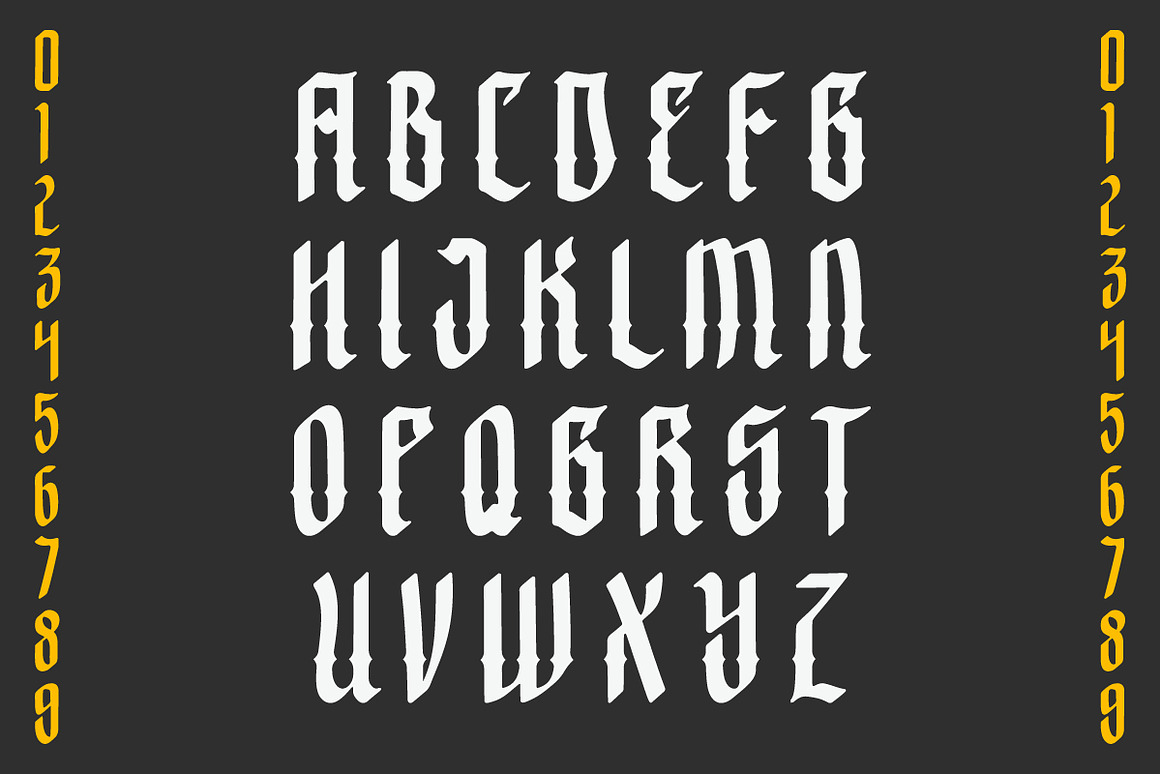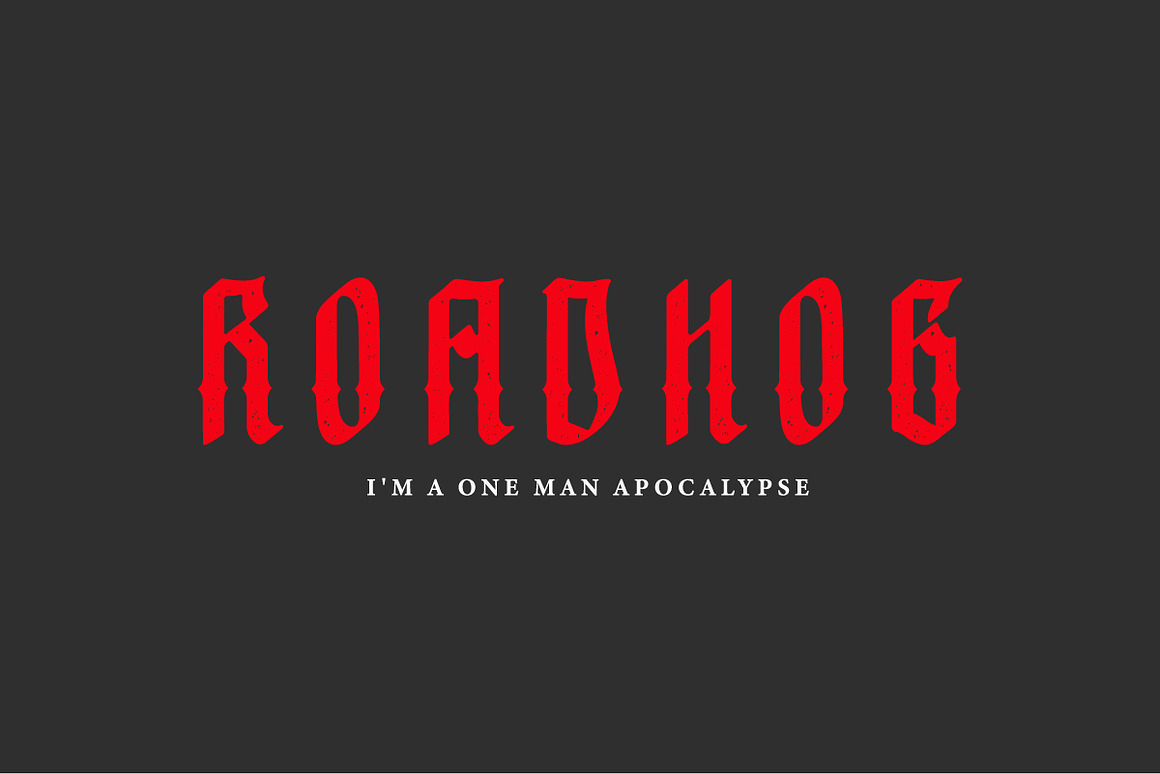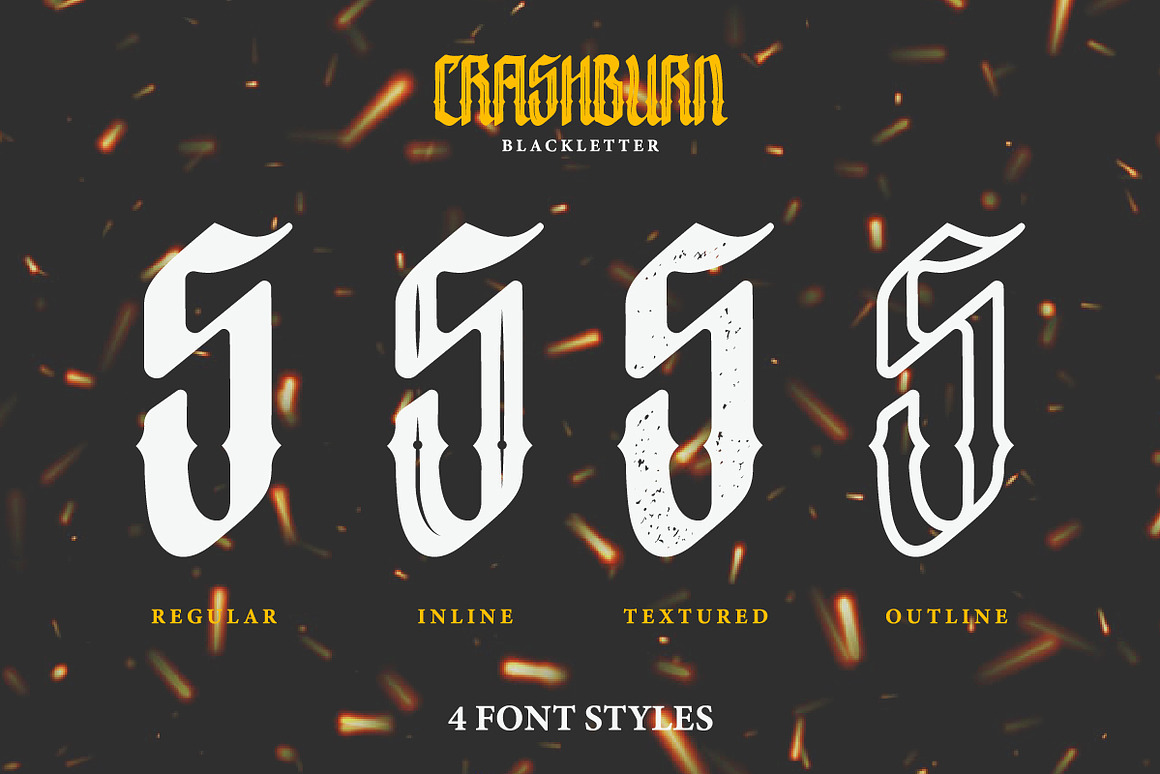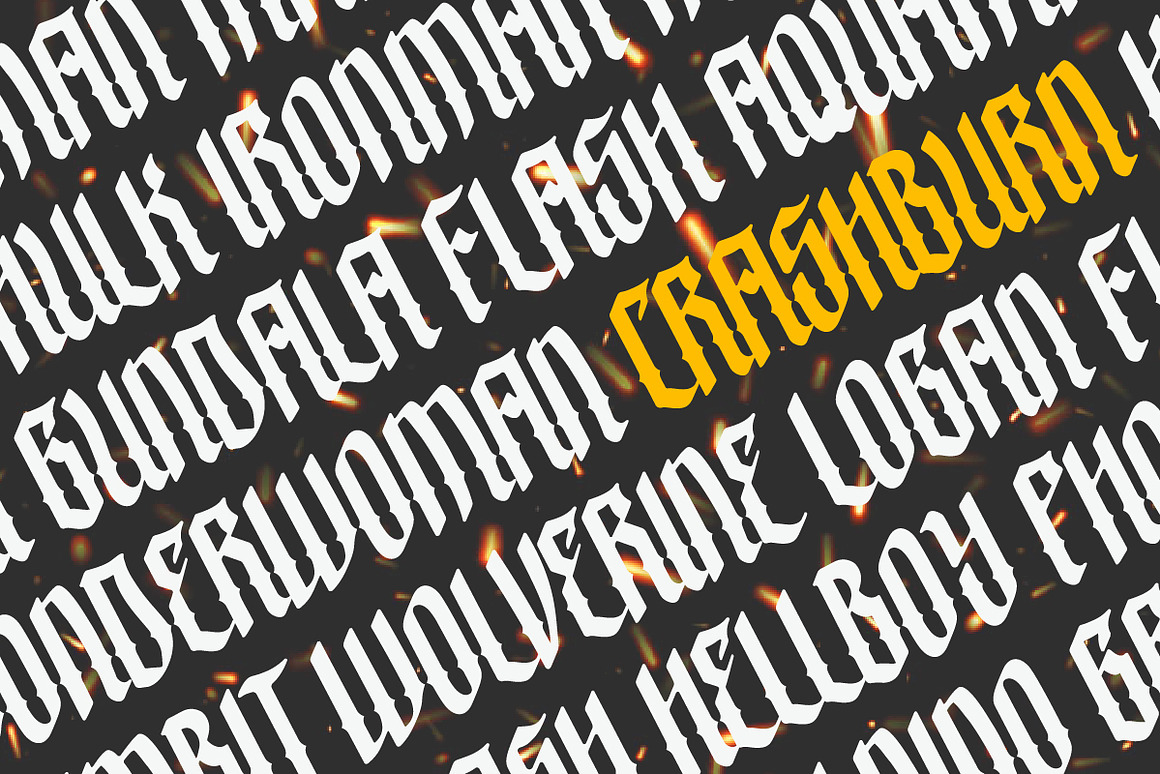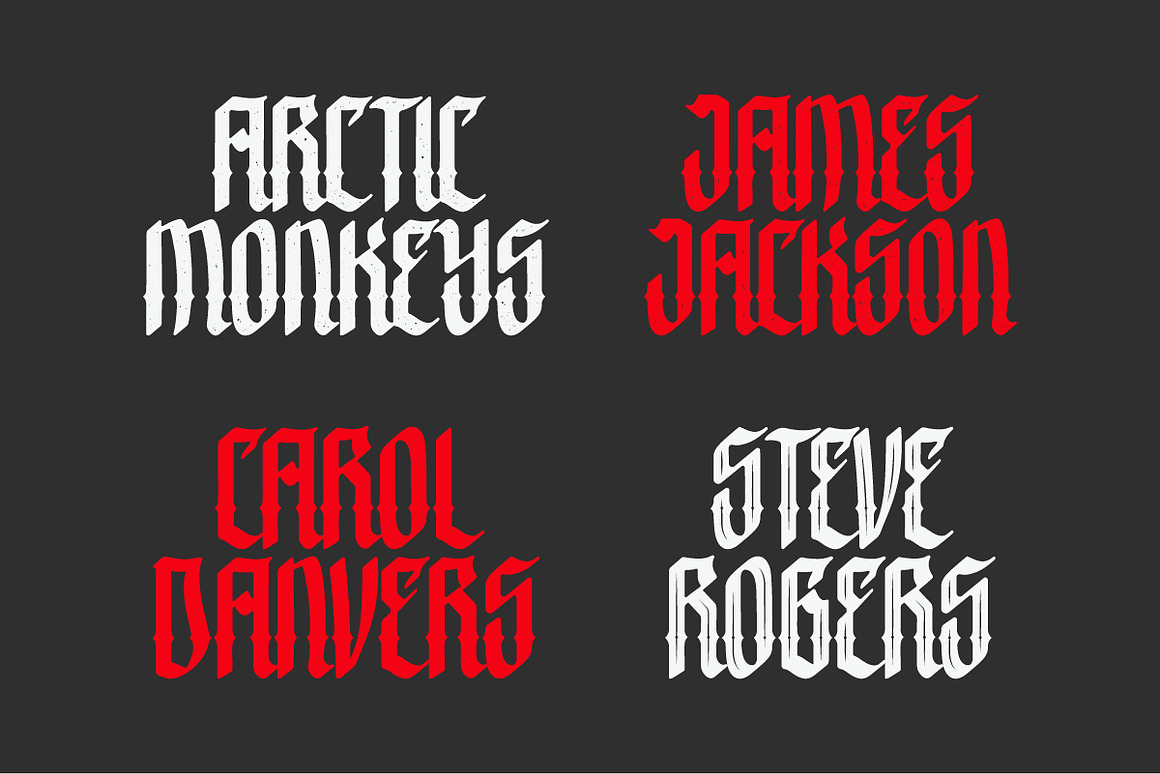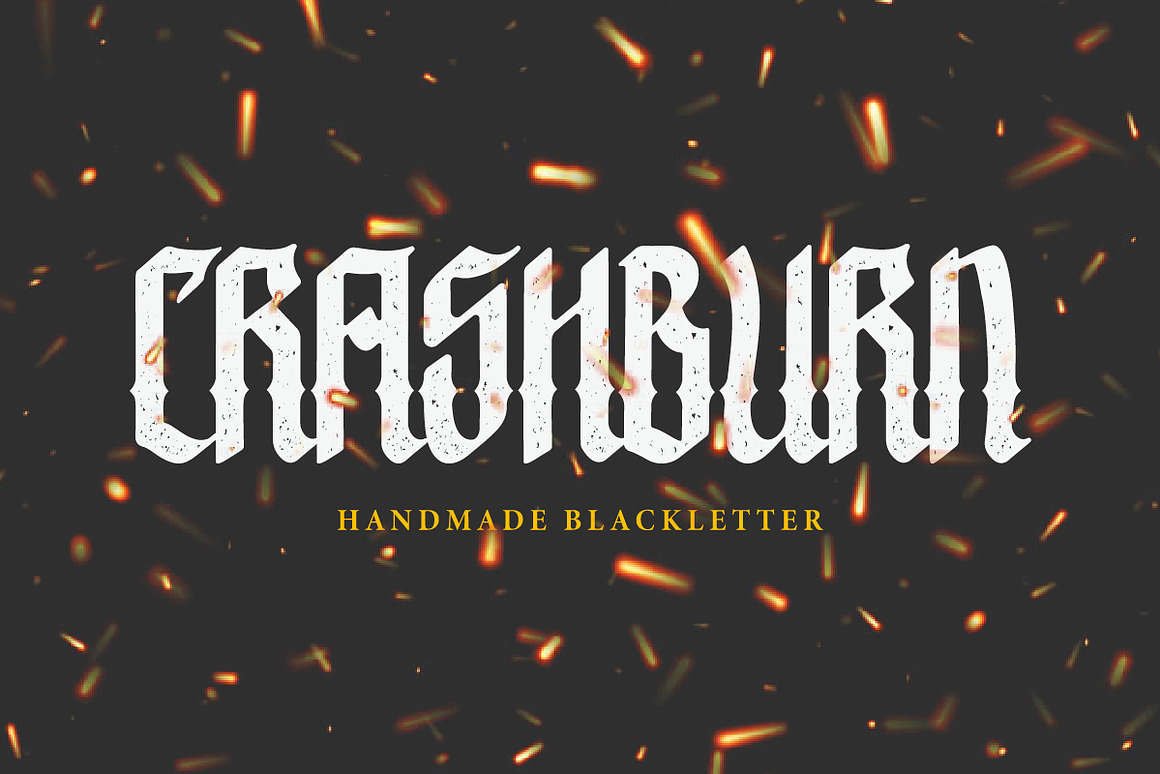
Crashburn | Blackletter Font
Crashburn | Blackletter Font is perfect for gothic branding, tattoo designs, heavy metal band logos, medieval-inspired posters, and alternative fashion packaging. Its dramatic blackletter style adds a bold and edgy touch to any project.
What makes Crashburn | Blackletter Font exciting is its intricate, historic letterforms combined with a modern flair. The sharp edges and ornate details create a visually striking design that demands attention, making it perfect for high-impact creative projects.
The Crashburn | Blackletter Font family includes Regular, Bold, and Decorative variations, giving designers versatility to craft both detailed headlines and expressive typographic compositions.
For designers seeking a typeface that conveys power, tradition, and artistic intensity, Crashburn | Blackletter Font Free Download is a must-have addition to any creative toolkit.